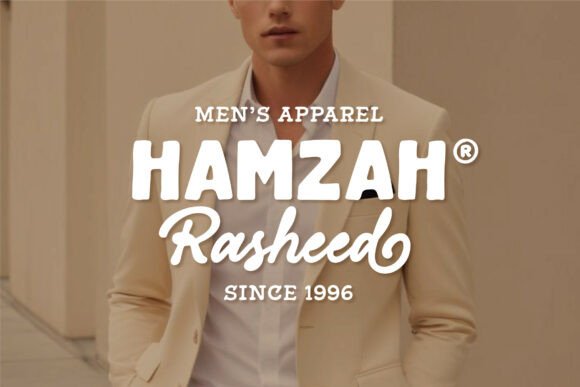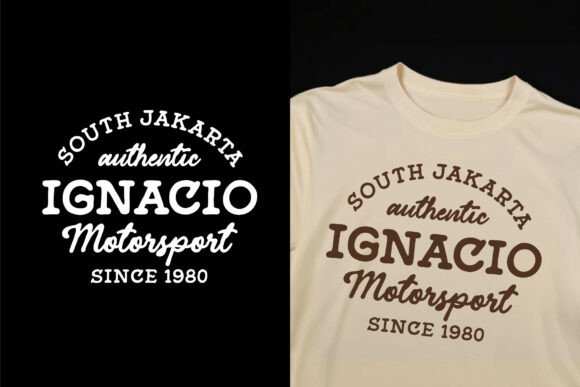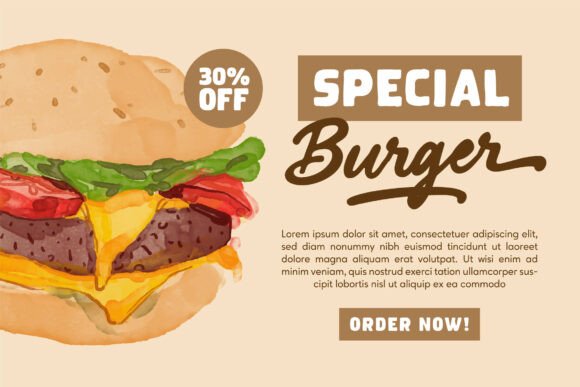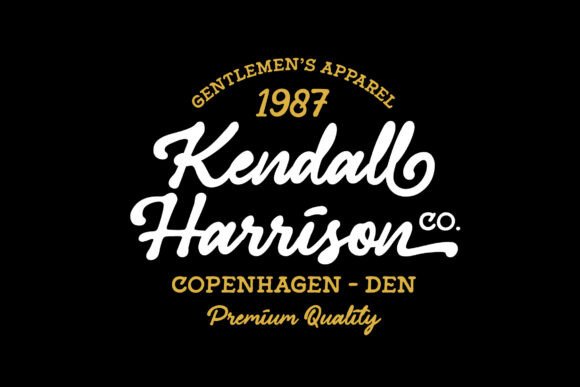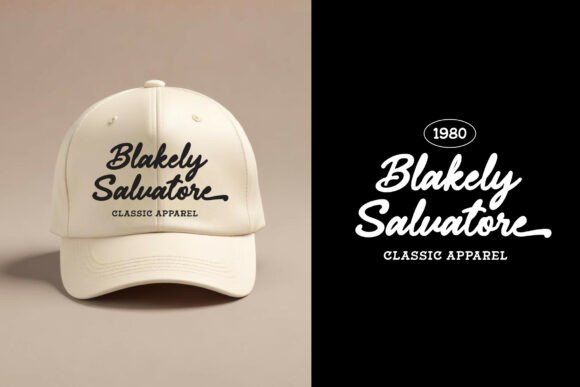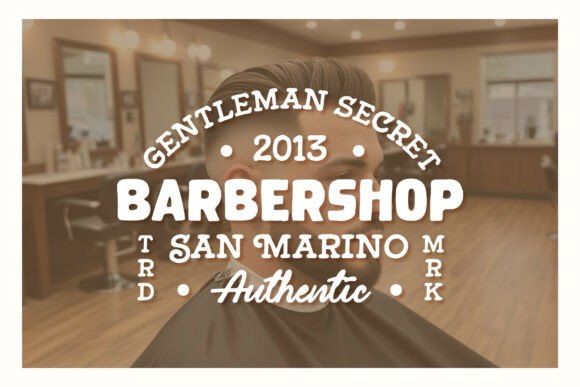
Introducing Gibson Mirage Sans Font: A Timeless Typeface for Modern Design
In the world of typography, few fonts manage to strike a balance between classic elegance and modern versatility. Gibson Mirage Sans Font is one such typeface that seamlessly blends traditional craftsmanship with contemporary design sensibilities. Inspired by the visual language of 20th-century print culture, Gibson Mirage is a masterful creation that draws from the tactile qualities of vintage signage, book covers, and archival materials.
The Genesis of Gibson Mirage
Gibson Mirage is the result of meticulous attention to detail and a deep respect for traditional lettering. Its design combines the sturdy, dependable qualities of slab serif fonts with the fluid, organic feel of script typography, and the clean, modern lines of sans-serif fonts. This unique blend of styles results in a typeface that is both nostalgic and forward-thinking.
Key Characteristics of Gibson Mirage Sans Font
- Slab Serif Influence: Gibson Mirage inherits the robust, dependable feel of slab serif fonts, which evoke a sense of solidity and permanence.
- Organic Script Elements: The font incorporates fluid, handwritten elements that add a touch of warmth and personality to its overall aesthetic.
- Subtly Irregular Sans Elements: Gibson Mirage’s sans components feature subtle irregularities that give the font a tactile, hand-crafted feel.
Design Applications for Gibson Mirage Sans Font
Gibson Mirage’s versatility makes it an excellent choice for a wide range of design applications, including:
- Branding and Logo Design: The font’s unique blend of classic and modern elements makes it perfect for creating distinctive brand identities.
- Print Design: Gibson Mirage’s vintage-inspired aesthetic makes it well-suited for book covers, posters, and other print materials.
- Digital Design: The font’s clean lines and legibility make it an excellent choice for digital applications, such as websites, mobile apps, and social media graphics.
Why Choose Gibson Mirage Sans Font?
In a design landscape dominated by generic, cookie-cutter fonts, Gibson Mirage Sans Font stands out as a beacon of creativity and craftsmanship. Here are just a few reasons why designers and crafters should consider adding Gibson Mirage to their typographic arsenal:
- Unique Aesthetic: Gibson Mirage’s distinctive blend of styles sets it apart from more generic fonts.
- Versatility: The font’s adaptability makes it suitable for a wide range of design applications.
- Legibility: Gibson Mirage’s clean lines and carefully crafted letterforms ensure excellent legibility, even at small sizes.
Tips for Using Gibson Mirage Sans Font Effectively
To get the most out of Gibson Mirage Sans Font, consider the following tips:
- Experiment with Font Sizes: Gibson Mirage’s versatility shines at a range of font sizes, from large headlines to smaller body text.
- Play with Color: The font’s vintage aesthetic pairs well with a range of colors, from earthy tones to bold brights.
- Mix and Match: Combine Gibson Mirage with other fonts to create visually interesting typographic hierarchies.
Gibson Mirage Sans Font is a masterful creation that brings together the best of classic typography and modern design sensibilities. With its unique blend of slab serif, organic script, and subtly irregular sans elements, this versatile typeface is sure to become a go-to choice for designers and crafters looking to add a touch of timeless elegance to their work.